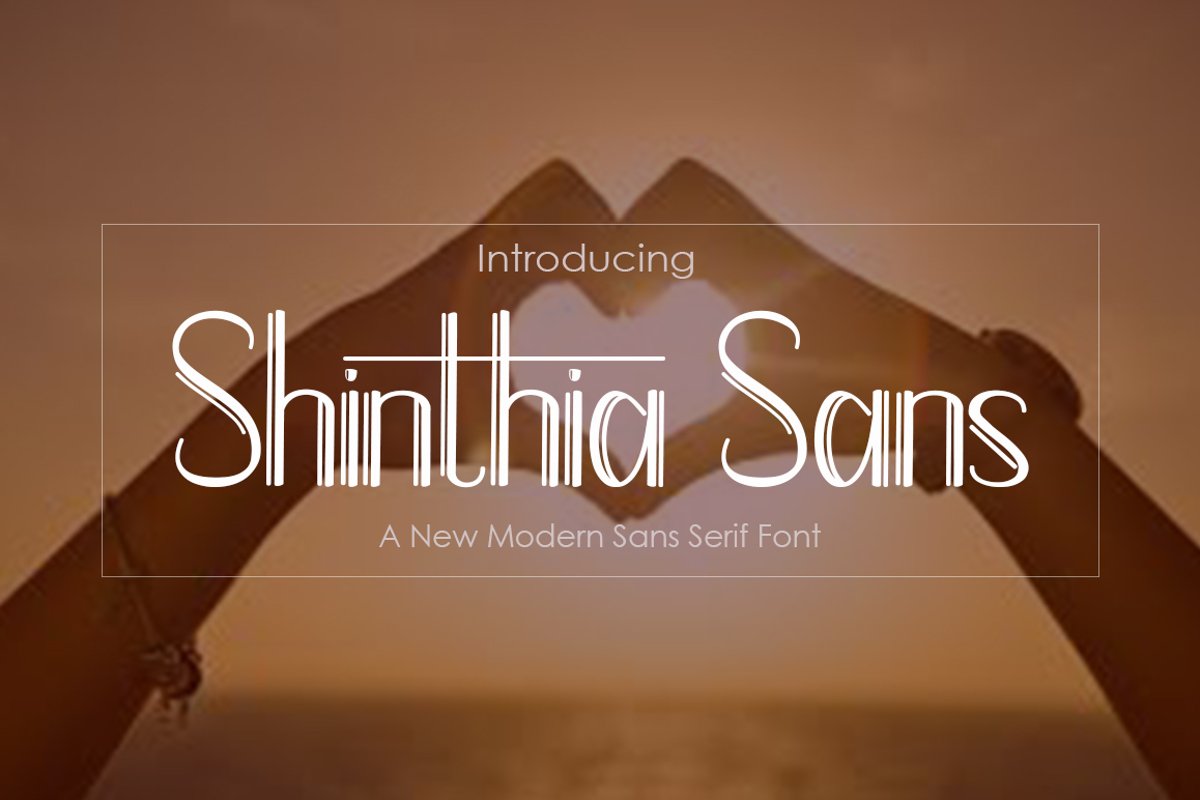
Shinthia Sans
Shinthia Sans is font Sans Serif, typography with a firm structure and very comfortable for the reader, also has a simple character. very suitable for official media such as banners, magazines, newspapers, books, and others.